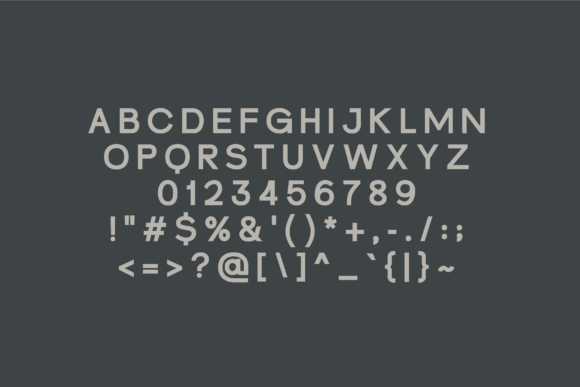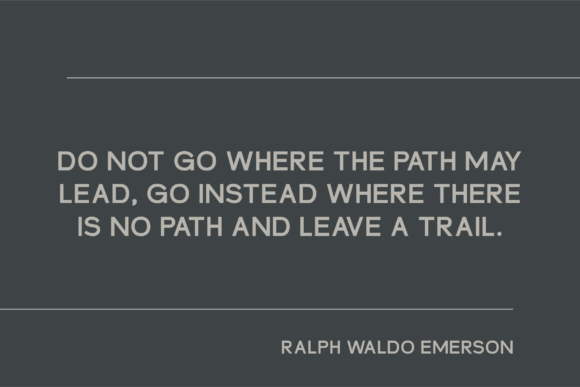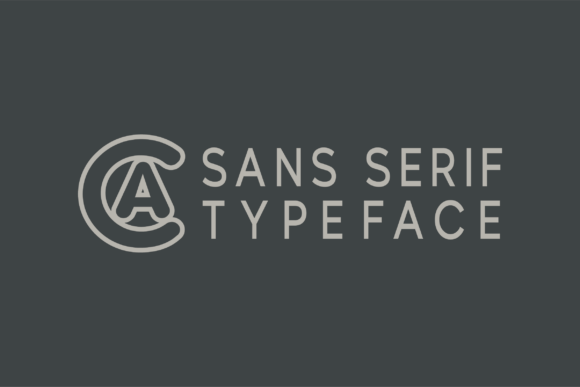
Introducing Detentiona Font: The Ultimate Choice for Bold and Modern Designs
In the world of typography, fonts play a crucial role in conveying messages, expressing emotions, and creating visual identities. For designers and crafters, finding the perfect font can be a daunting task, especially when it comes to creating impactful and clean visuals. This is where Detentiona Font comes in – a bold, modern, all-caps sans-serif font designed to elevate your designs with its strong, confident look.
What is Detentiona Font?
Detentiona Font is a carefully crafted typeface that embodies the essence of modern design. Its bold and clean lines make it perfect for a wide range of applications, including logos, headlines, posters, packaging, and digital content. Whether you’re working on a branding project, tech, fashion, or creative endeavor, Detentiona Font is the ideal choice to add a professional touch without being too complex.
Key Features of Detentiona Font
- Bold and Modern Design: Detentiona Font boasts a bold, modern aesthetic that is sure to grab attention. Its clean lines and sans-serif design make it perfect for creating impactful visuals.
- All-Caps Sans-Serif Font: The font features a sleek all-caps design, making it ideal for headlines, titles, and emphasis.
- Highly Versatile: Detentiona Font is simple to use and can be applied to various design projects, from logos and branding to posters and digital content.
- Standard Latin Characters, Punctuation, and Numerals: The font includes a comprehensive set of standard Latin characters, punctuation, and numerals, making it easy to use for a wide range of design needs.
Why Choose Detentiona Font?
Detentiona Font offers a unique combination of style, clarity, and versatility, making it an excellent choice for designers and crafters. Here are some reasons why you should consider using Detentiona Font in your next design project:
- Creates Impactful Visuals: The bold design of Detentiona Font ensures that your message gets noticed, making it perfect for headlines, titles, and emphasis.
- Enhances Branding and Identity: Detentiona Font’s strong, confident look makes it an excellent choice for branding and identity projects, helping you establish a professional and modern image.
- Easy to Use: The font is simple to integrate into your design workflow, saving you time and effort.
- Perfect for Digital Content: Detentiona Font is optimized for digital use, ensuring that your designs look great on various devices and platforms.
Design Applications for Detentiona Font
Detentiona Font is a versatile typeface that can be used in a wide range of design applications, including:
- Logos and Branding: Create a strong and modern visual identity with Detentiona Font.
- Headlines and Posters: Use Detentiona Font to create attention-grabbing headlines and posters that make a lasting impression.
- Packaging Design: Add a professional touch to your packaging design with Detentiona Font’s clean and bold aesthetic.
- Digital Content: Use Detentiona Font to create engaging and modern digital content, including social media graphics, website headers, and more.
In conclusion, Detentiona Font is an excellent choice for designers and crafters looking for a bold, modern, and versatile typeface. Its clean lines, strong aesthetic, and high versatility make it perfect for a wide range of design applications. Whether you’re working on a branding project, tech, fashion, or creative endeavor, Detentiona Font is sure to elevate your designs with its confident and professional look. So why wait? Try Detentiona Font today and take your designs to the next level!